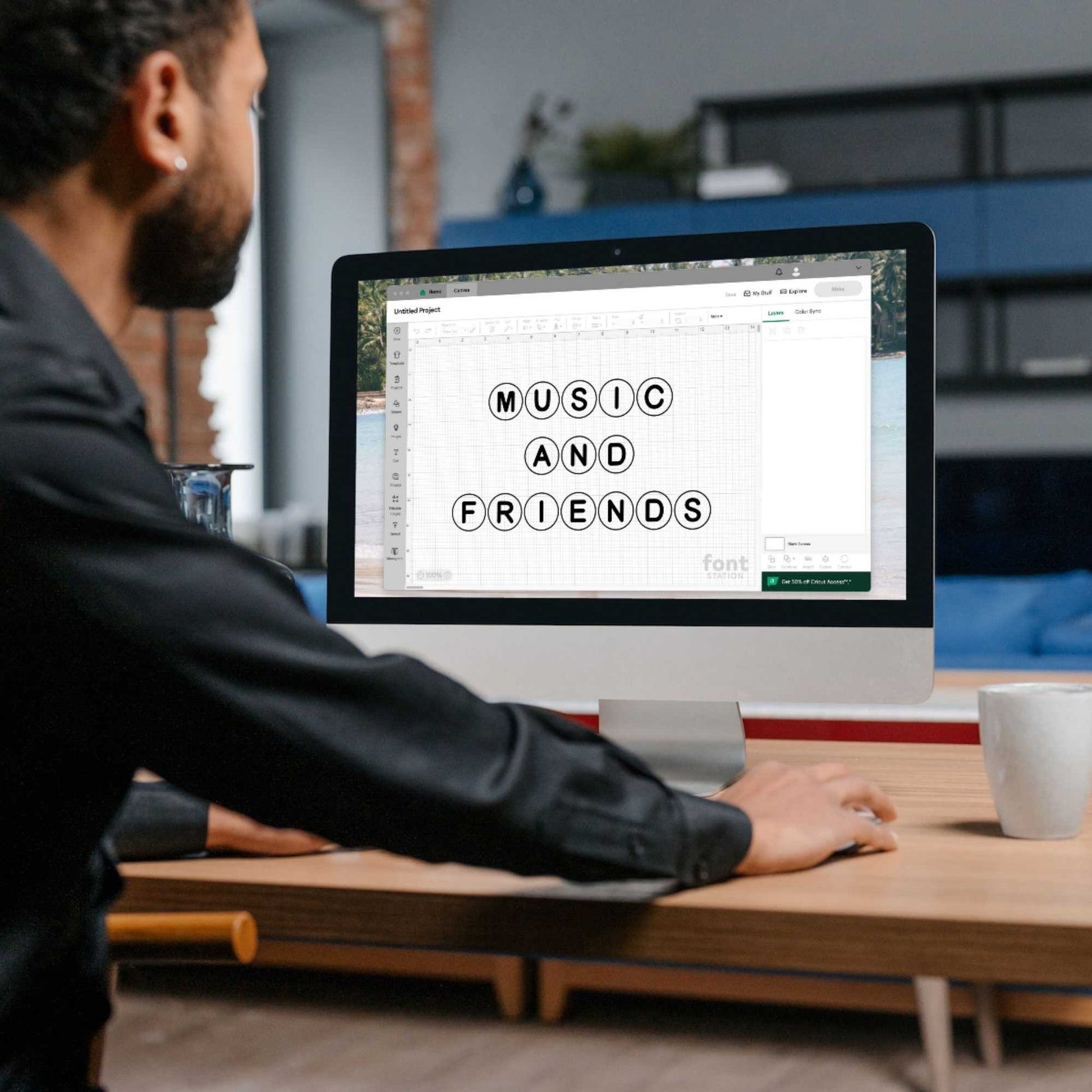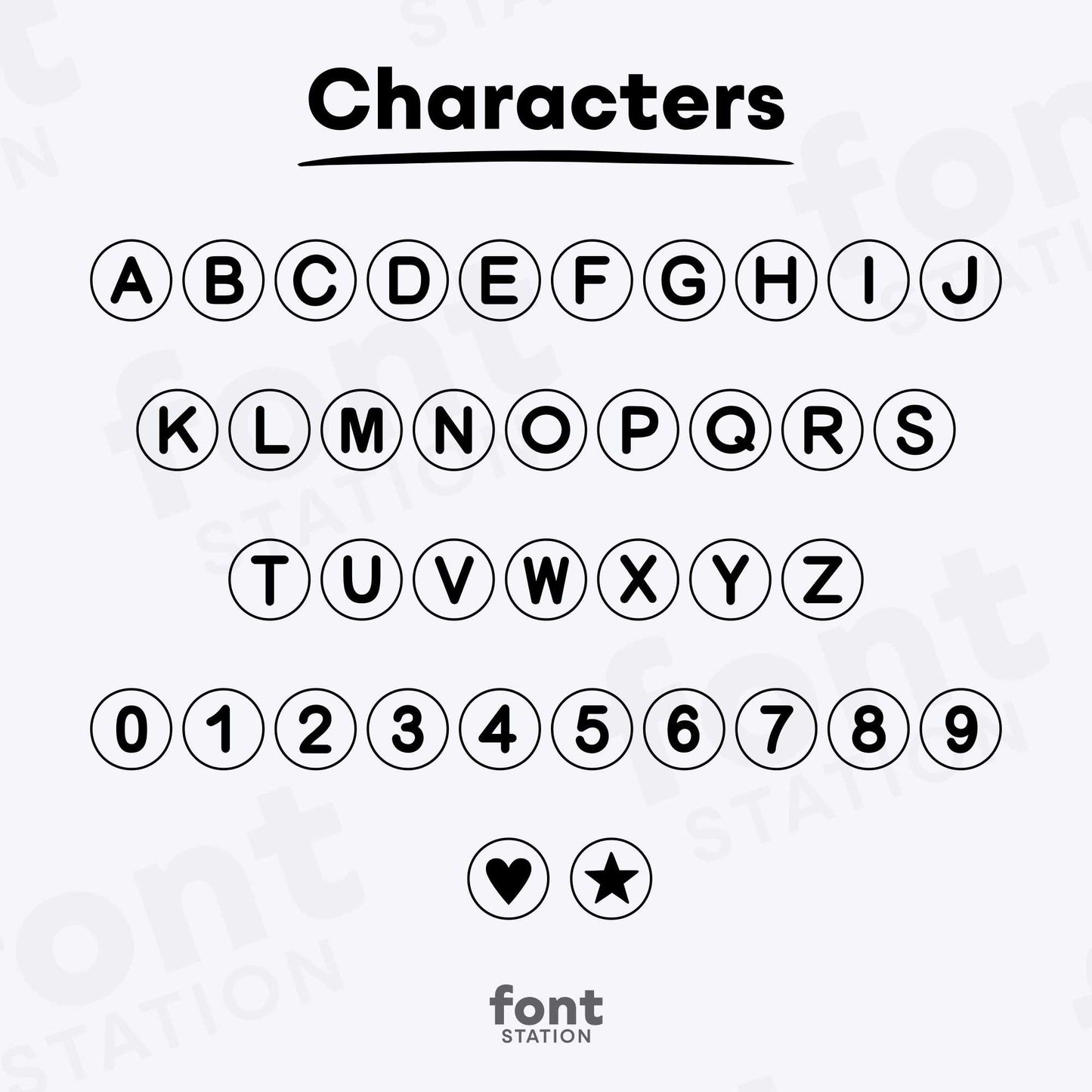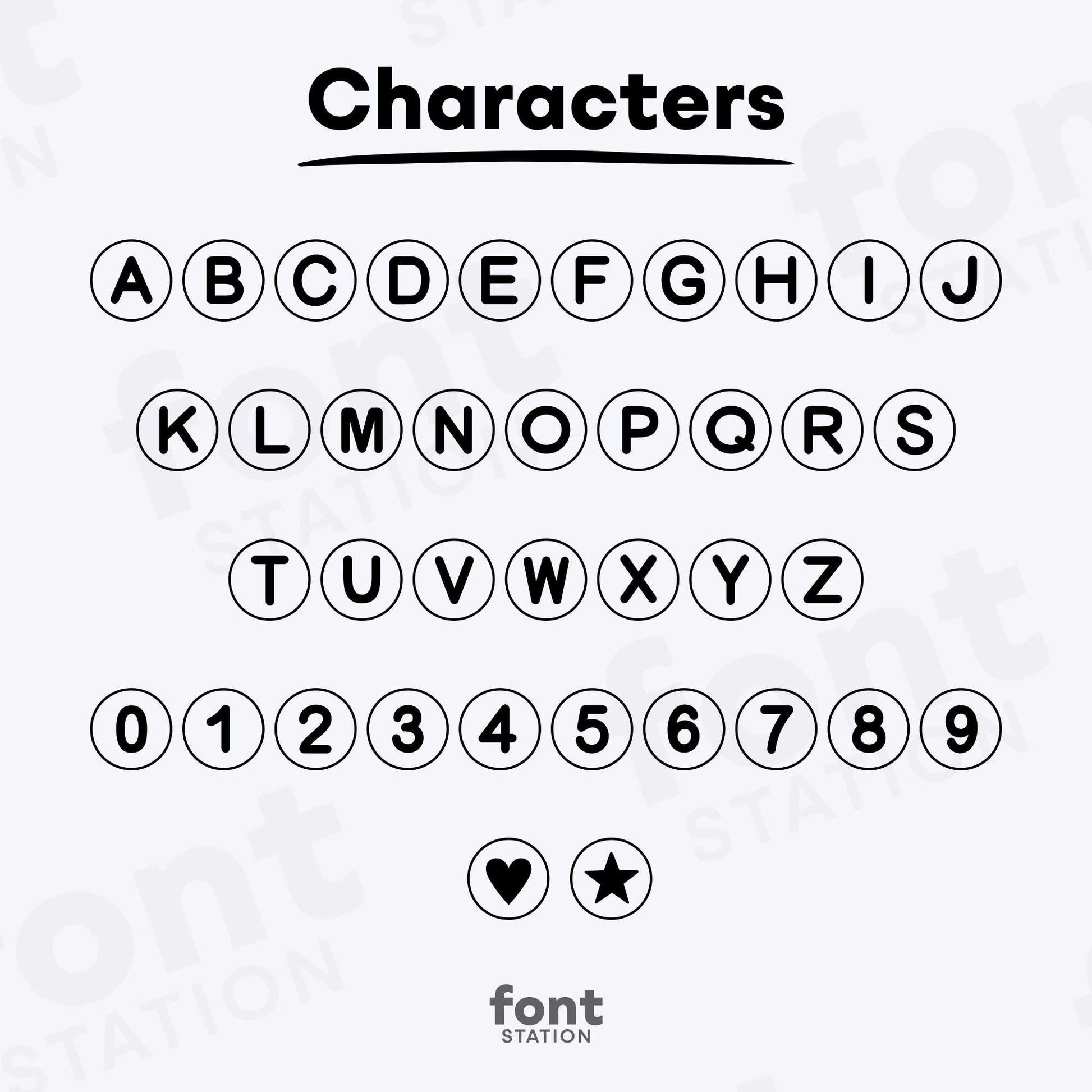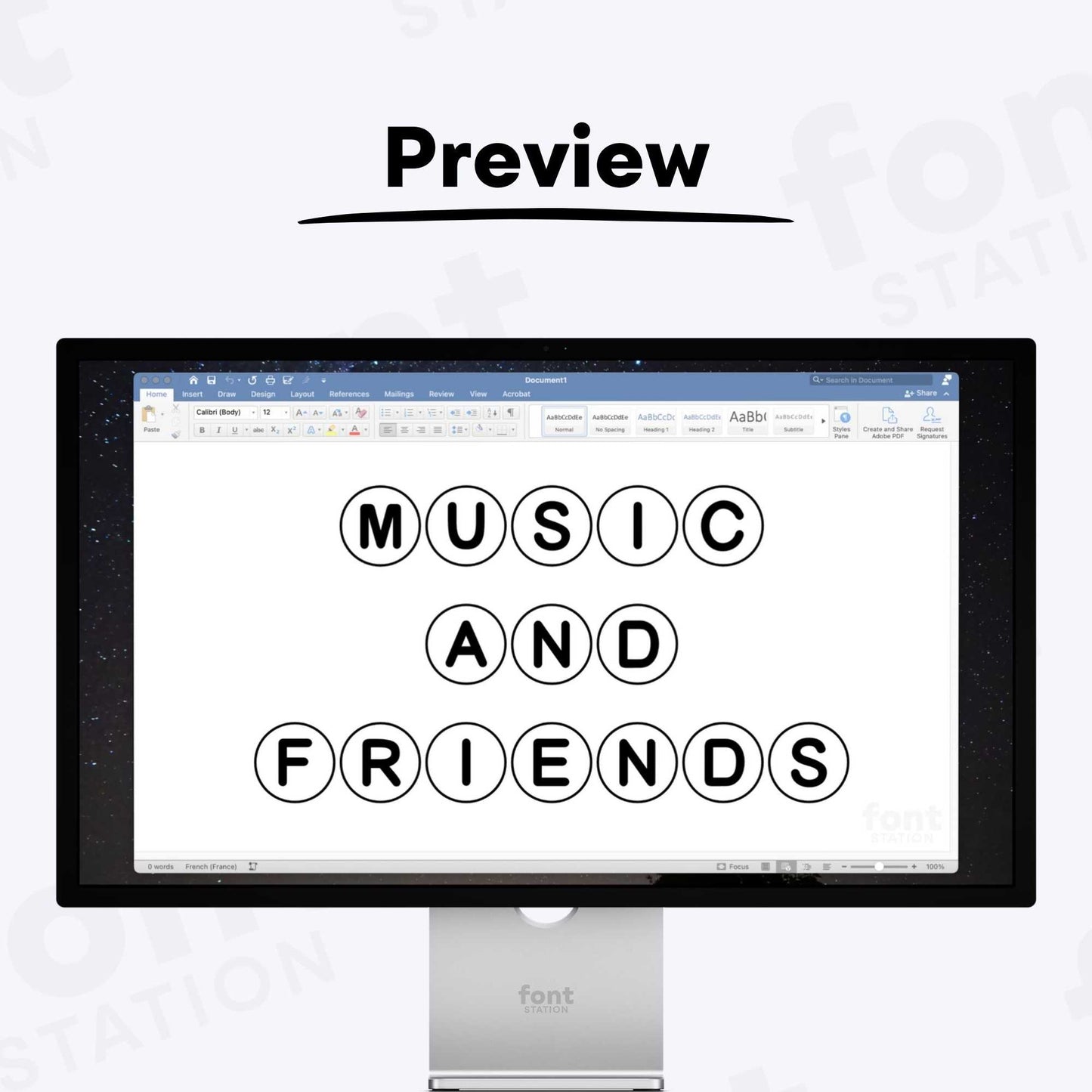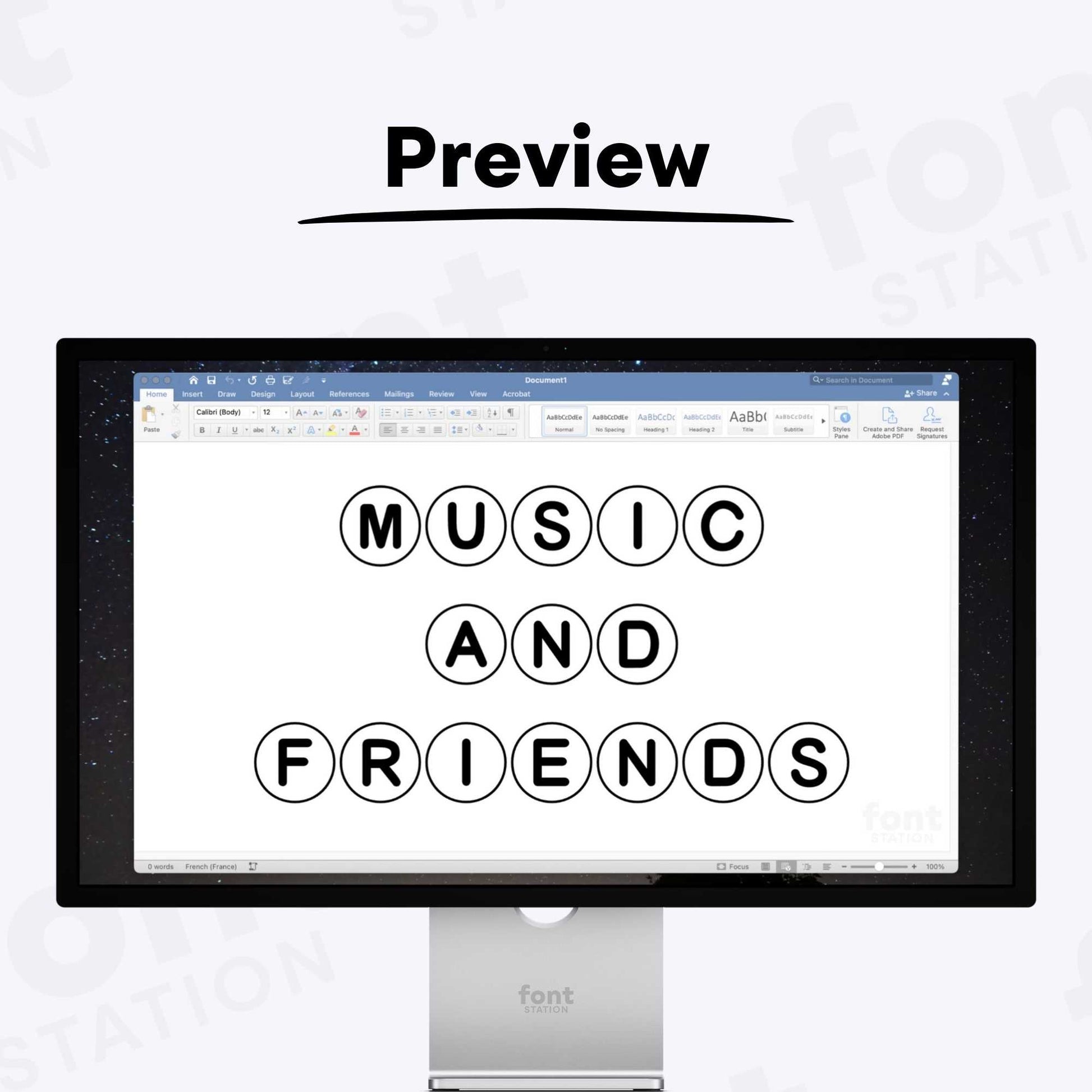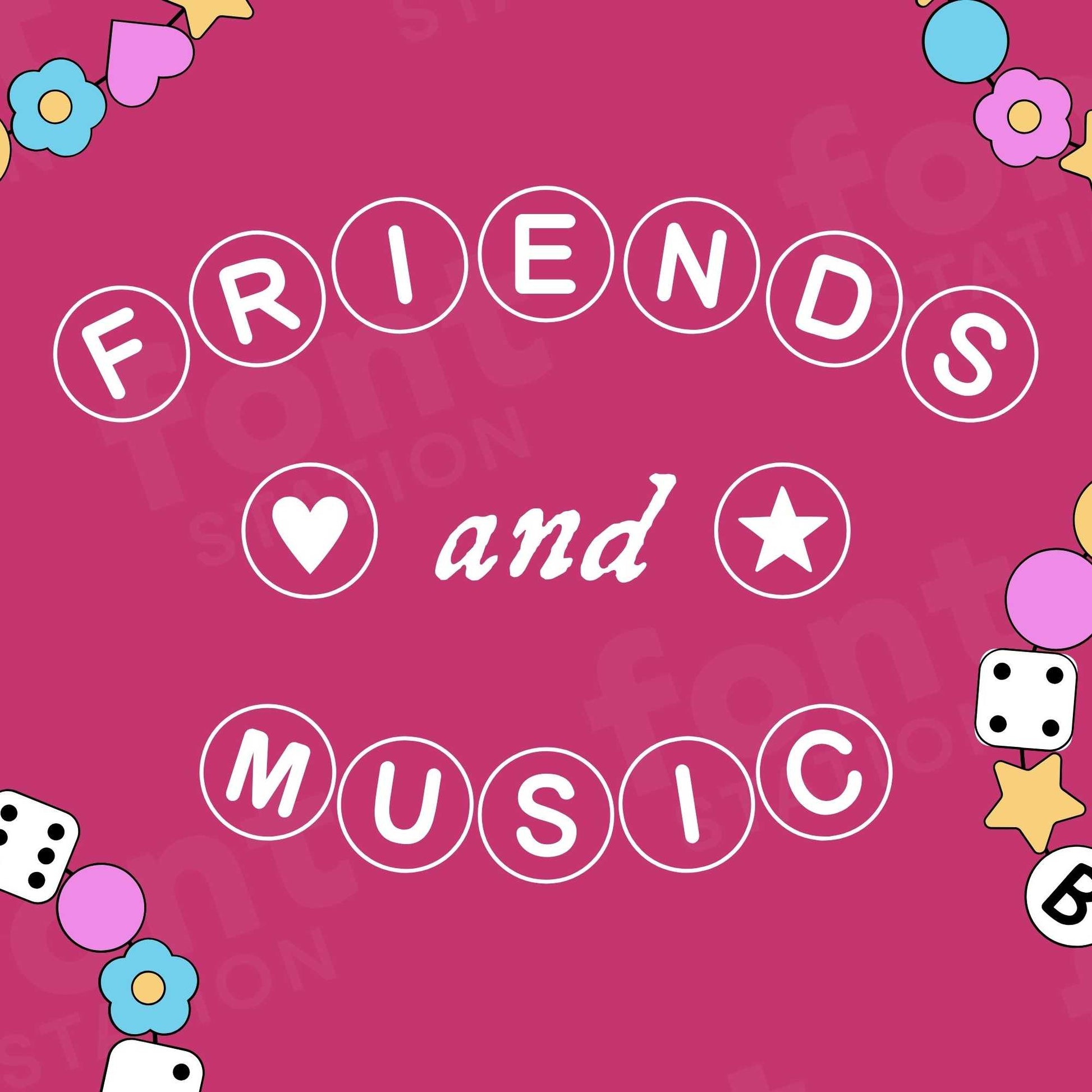
Friendship Beaded Bracelet Font
Our Friendship Beaded Bracelet typeface, inspired from Swiftie Alphabet Beads font
Unlock Your Creativity with our Friendship Beaded Bracelet Font: A versatile font that you can use in any of your projects!
Grab your computer, tablet or other device and start creating right now with our Friendship Beaded Bracelet font letters! Our Friendship Beaded Bracelet typography is inspired from Swiftie Alphabet Beads font, making it ideal for various digital creations (logo, word...), sublimation, cake toppers, stickers, event decorations, and more.